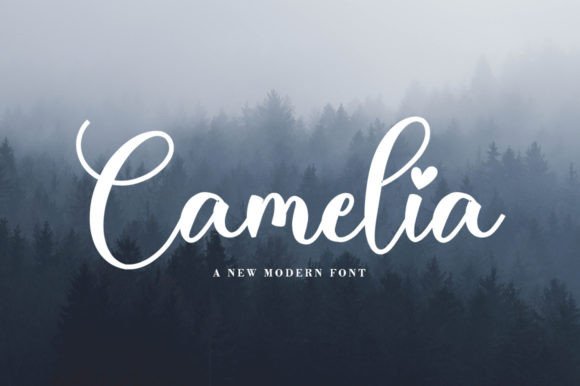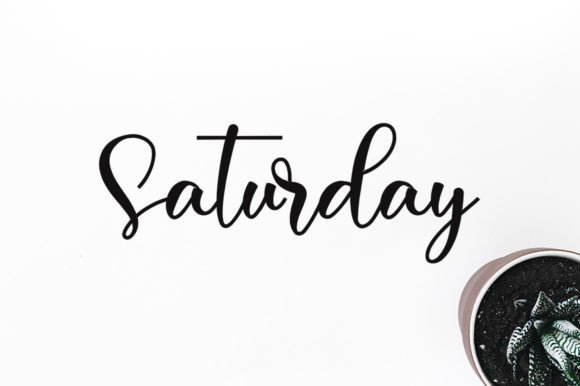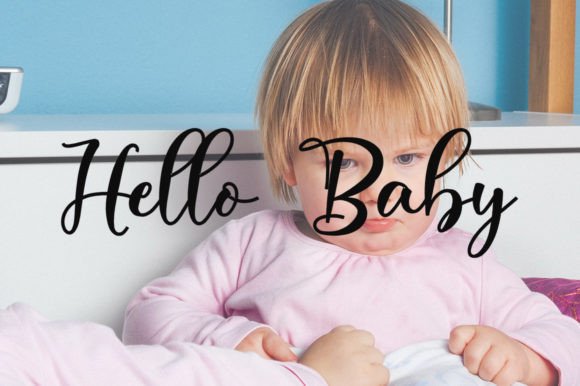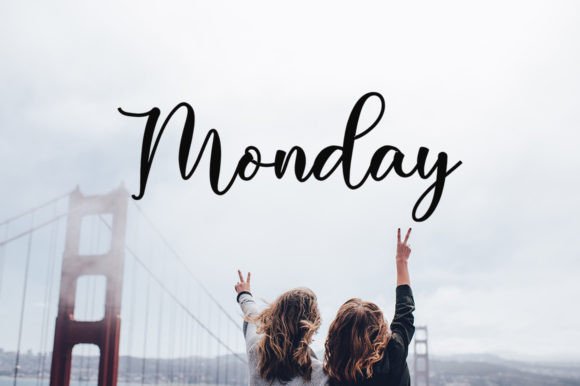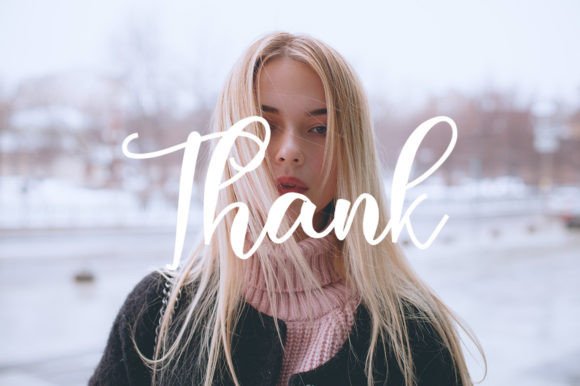
Camelia Font
What Is Camelia Font?
Camelia Font is a magical script typeface designed to bring elegance and charm to your creative projects. Each letter features smooth, flowing strokes and refined details that feel graceful and modern. Because of its versatile style, this font is perfect for any design that needs a sophisticated handwritten look.
You will see how easily Camelia transforms simple ideas into polished, eye-catching results.
Camelia is a highly adaptable font you can apply across many creative contexts. For example, it’s perfect for Instagram posts and social media graphics. The elegant script helps your content stand out and feel more professional.
In addition, it works beautifully for DIY projects and crafts. Whether you’re designing invitations, labels, or handmade products, Camelia adds a personal, artistic touch.
You can also use it for logos and branding. The graceful letters make any brand feel premium and memorable.
When you design wedding invitations or event stationery, Camelia brings a romantic, timeless look that feels warm and inviting.
Moreover, it’s ideal for quotes, website headers, product packaging, and greeting cards. Even minimalist layouts become more engaging with this script.
Why Should You Choose Camelia Font?
There are many reasons to consider Camelia for your next project. First, it’s easy to read, even with its delicate flourishes. Whether you use it for large headlines or small text, every letter stays clear and balanced.
Also, Camelia pairs beautifully with clean serif or sans-serif fonts. This helps you build cohesive and modern layouts effortlessly.
Designers love that it looks professional out of the box, saving time while delivering polished results.
Camelia Font brings sophistication and warmth to every project. For example, when you want your designs to look elegant and memorable, this font makes it simple.
Even the simplest layouts feel more beautiful with Camelia’s refined handwritten style. Whether you create social posts, packaging, or invitations, your work will stand out instantly.
Using a premium script font also shows your commitment to detail and quality. This builds trust with your audience and makes your designs more impactful.
Camelia Font is more than just a typeface—it’s a creative tool that helps you share ideas with clarity and style. From Instagram graphics and DIY projects to logos and wedding stationery, this font adapts easily and leaves a lasting impression.